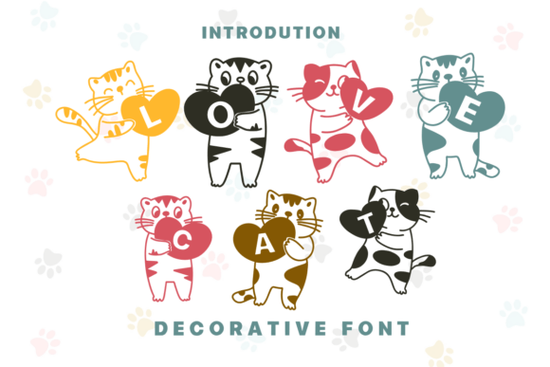
If you've ever needed a font that feels like a hug from a cartoon cat, Love Cat Font might be exactly what you're looking for. It's a hand-drawn decorative typeface where each letter is held by a little feline character floating with a heart-shaped balloon. This isn't just another cute font it's a complete illustration set disguised as an alphabet. For anyone creating kids' products, pet-related branding, or warmhearted greeting cards, this one brings immediate personality that standard serifs or scripts can't deliver.
What makes the Love Cat Font different from other decorative fonts?
Most decorative fonts rely on flourishes or unusual letterforms. Love Cat Font goes a step further by making each character a standalone illustration. The cats look hand-sketched, with soft lines and playful poses. The heart balloons add a bright pop of interest. This means your text becomes part of the artwork, so you don't need to add extra clip art or icons. It's all built into the letters.
It also keeps a consistent “kawaii” style. Whether you're using it for a birthday banner or a “Cat Mom” hoodie, the font sets a clear tone friendly, cheerful, and slightly whimsical. That consistency is hard to find in free decorative alternatives, where one letter might look out of place.
How can you actually use this font for print-on-demand products?
Print-on-demand sellers often struggle to find fonts that look good on fabric without losing legibility. Because Love Cat Font uses clear, bold outlines, it works very well on t-shirts, onesies, tote bags, and hoodies. The hand-drawn feel gives apparel a genuine, artistic touch that buyers associate with quality small-batch designs.
- Example for cat lovers: A hoodie that says “Purrfect Day” in this font immediately catches the eye.
- For kids: Onesies with the child's name spelled by the cats become personalized gifts parents love.
- For pet businesses: A grooming salon logo using the font feels approachable and memorable.
Where does this font fit best for party and event printables?
Birthday decorations, cake toppers, and sticker sheets are natural matches for Love Cat Font. The heart balloons make it ideal for celebratory messages like “Happy Birthday” or “You're the Best.” Because each letter is already an illustrated element, you can space them out as individual pieces for bunting banners. That saves design time no need to crop or mask anything.
Small business owners who sell printable party kits on Etsy or Creative Fabrica can package this font into themed sets. Pair it with pastel backgrounds and simple star motifs for a cohesive look. The font also works for “Thinking of You” cards and “Get Well Soon” notes, where the cute cats soften the message without making it feel childish.
Is this font practical for educational materials and kids' projects?
Teachers, homeschoolers, and designers creating learning resources will appreciate how the font turns the alphabet into a visual story. Each cat holds a letter, so kids can practice letter recognition by associating the shape with a friendly character. You can create alphabet posters, tracing worksheets, or name tags that feel more like play than work.
The hand-drawn quality also lends itself well to coloring pages. Print the letters in grayscale and let children color the cats and heart balloons. This extends the use of the font beyond just text it becomes a two-in-one design asset.
What font pairings work with the Love Cat Font?
Because Love Cat Font is so decorative, you'll want to pair it with a clean, neutral font for body text or secondary information. Sans-serif options like Montserrat or Open Sans keep the overall design balanced. Avoid pairing it with another overly busy font, as that can look chaotic.
If you're building a full brand kit, use Love Cat Font for headlines and logos, then a simple script font for taglines. For example, the font itself can act as the logo, while a soft script like Caveat adds a handwritten compliment. The contrast highlights each element without competing.
Practical checklist for using Love Cat Font in your next project
- Check spacing: The cats take up more horizontal space than standard letters, so adjust tracking for longer words.
- Test on dark backgrounds: The hand-drawn lines are dark, but heart balloons may need a light outline to stay visible on black tees.
- Use for short phrases: It shines best with 2–5 words. Very long sentences lose readability.
- Layer with shapes: A simple circle or banner behind the text helps it stand out on busy backgrounds.
Once you have it, try making a quick “Thank You” sticker sheet for a test run. It takes only a few minutes and shows exactly how the font behaves when you scale it up or down. That's the easiest way to see if this style fits your creative toolbox.